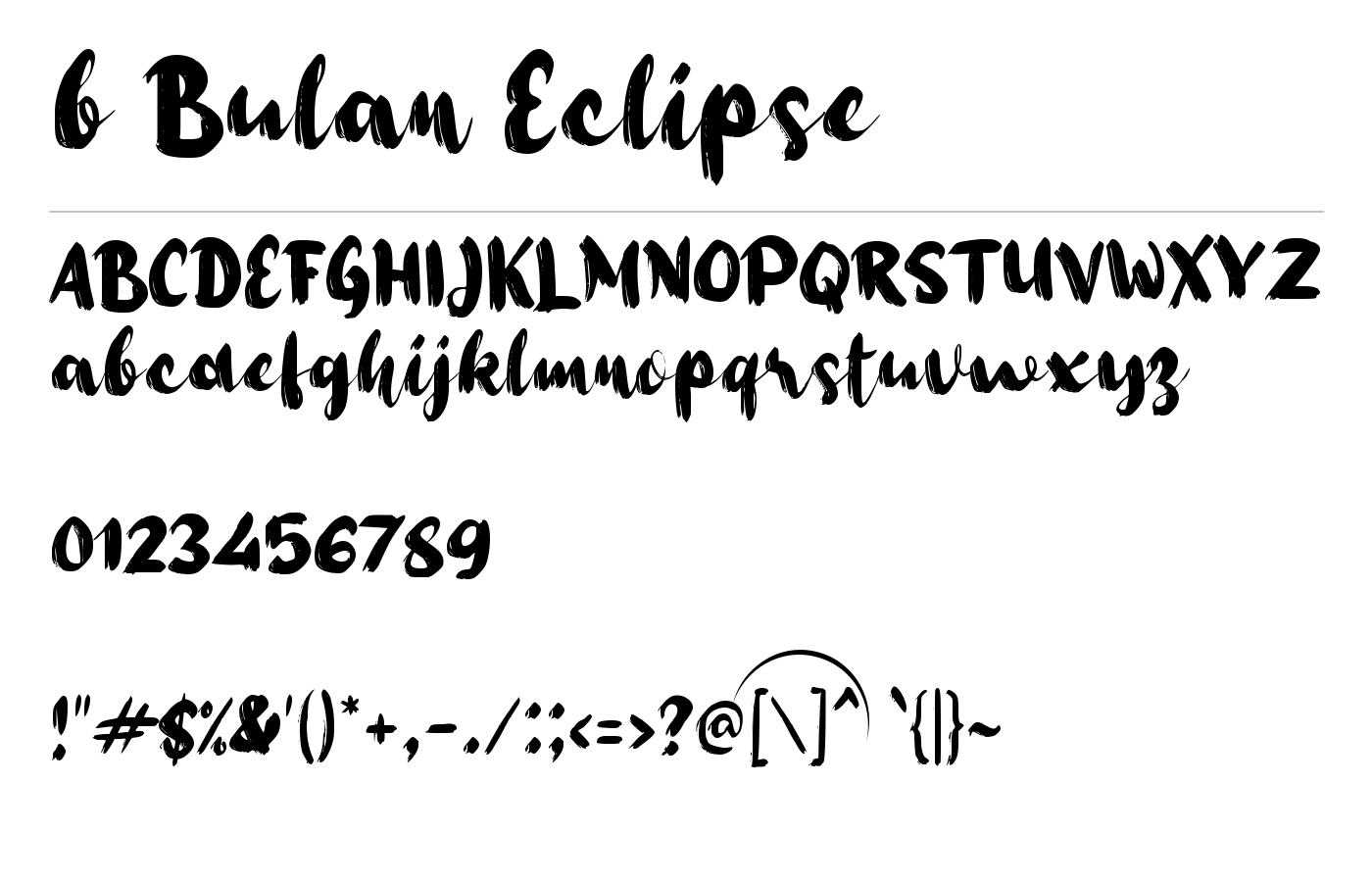
b Bulan Eclipse is a bold, brush-style script font that combines a lively, hand-painted feel with strong, textured strokes. Its high contrast and irregular edges give it an artistic and expressive personality, making it ideal for creative branding, posters, and eye-catching headlines where a casual yet impactful look is desired. This font excels in projects seeking an energetic and handcrafted vibe, perfect for fashion, lifestyle, and artsy designs.
b Bulan Eclipse Font
About b Bulan Eclipse Font